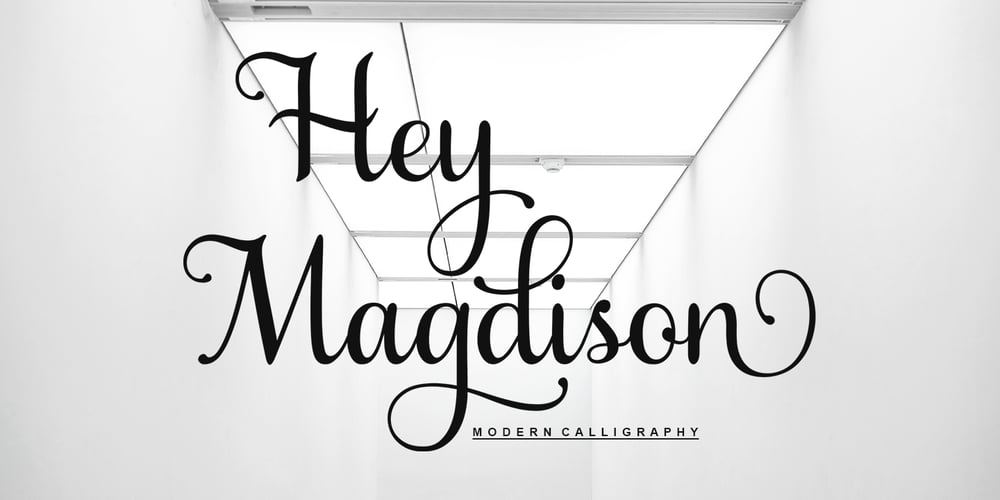
Hey Magdison Font Family was designed by Vina Amelia and published by Amelia Studio. Hey Magdison contains 3 styles and family package options. Introducing Hey Magdison with a smooth handwriting style and very pretty and lovely. Hey Magdison is perfect for branding projects, home appliance design, product packaging, use in business cards, invitation cards, etc. Just like a stylish text overlay to a wallpaper or anything that needs a touch of love.Thanks for checking! I really hope you enjoy it.